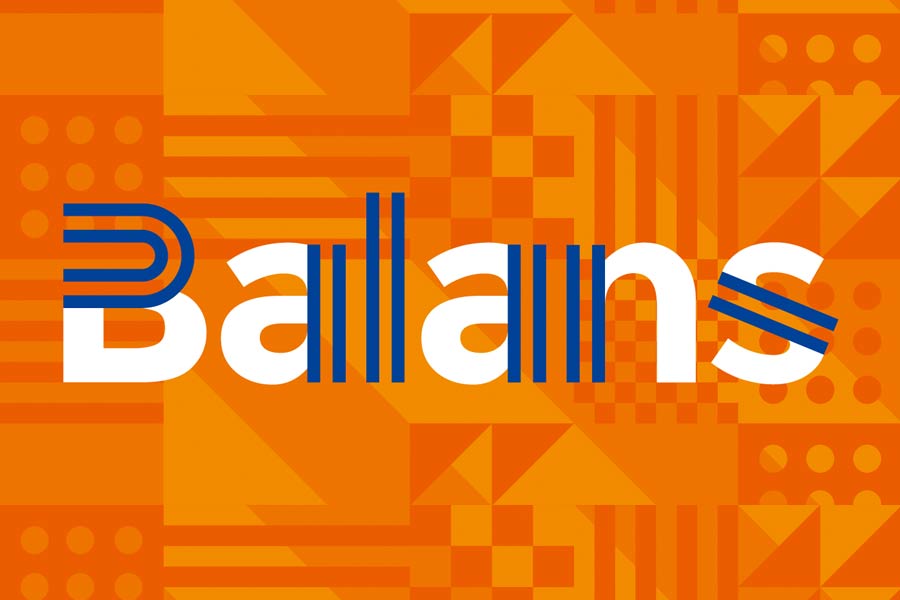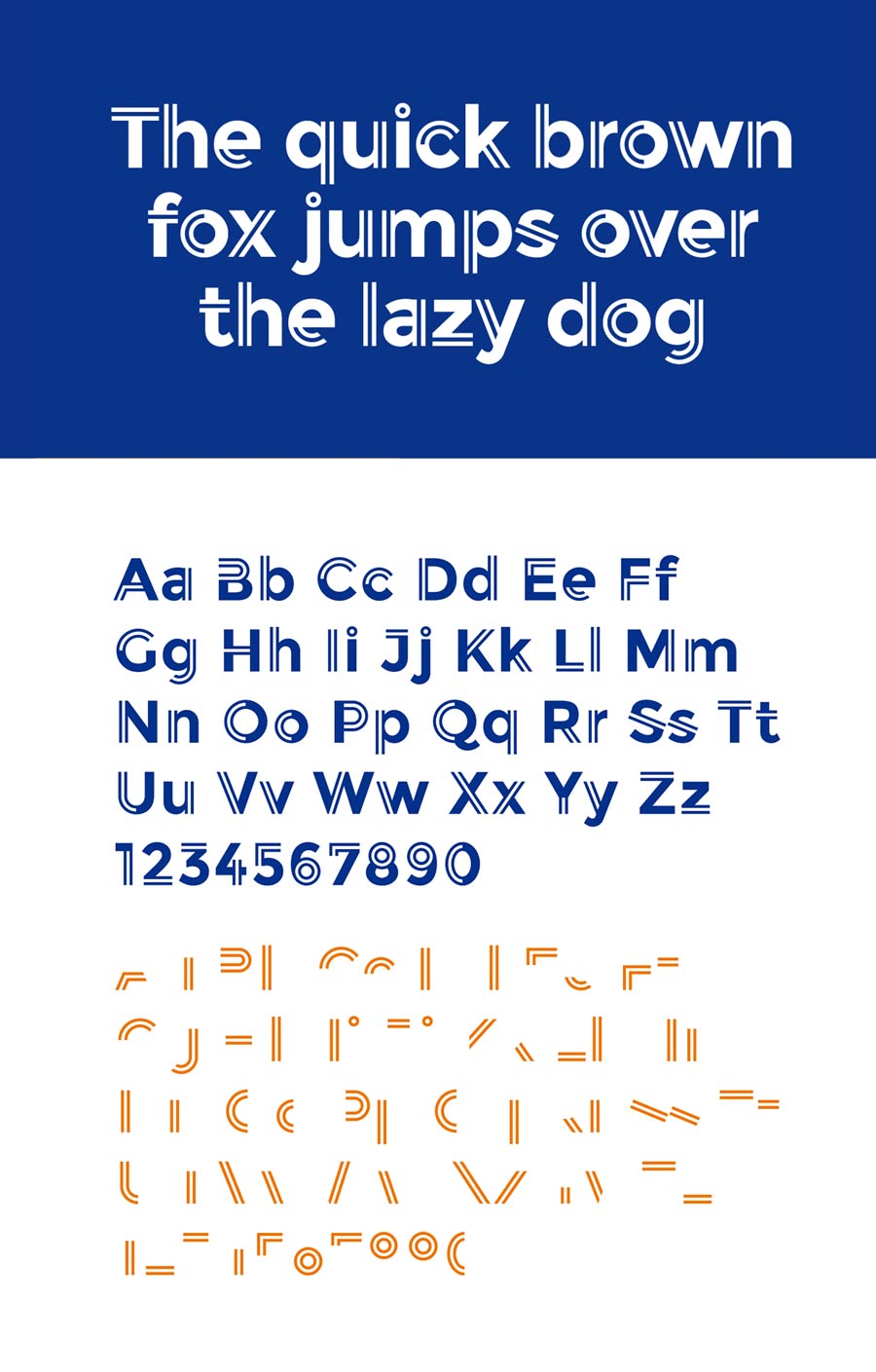
Balans, is a free font that combines letters with shapes. According to the designer, Balans in Dutch means balance, is a font that searches for balance between form and functions in every single letter. It comes with two font files and you can use this for commercial use.